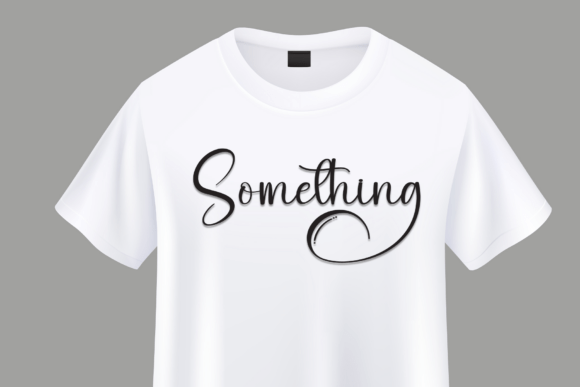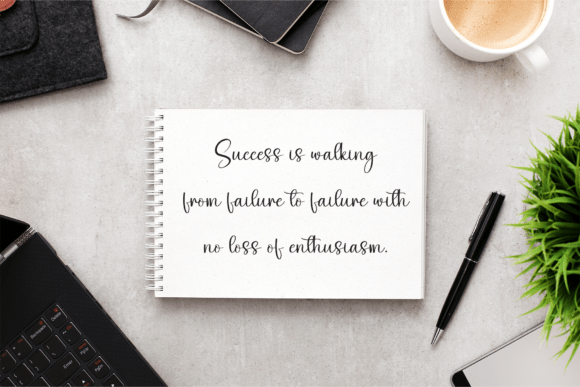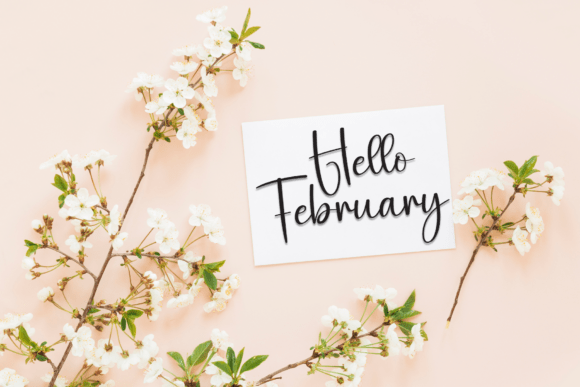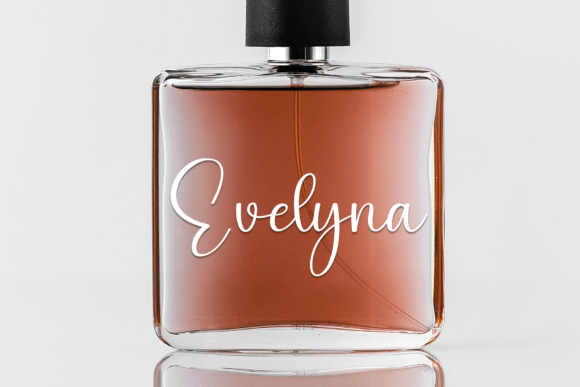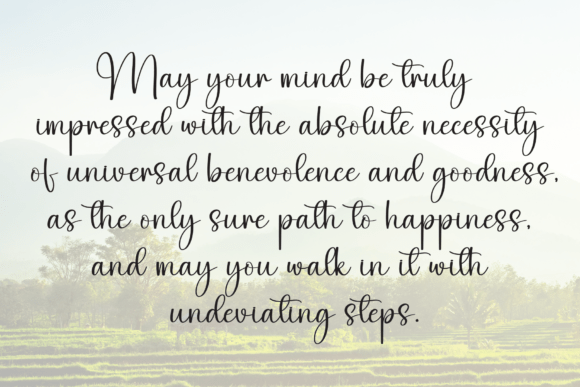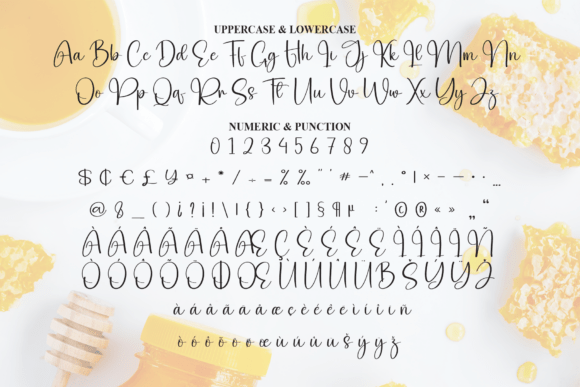
Unlock the Sweetest Touch for Your Creative Projects
Have you ever stumbled upon the perfect font while brainstorming for a new project, and suddenly, your entire concept comes to life? That’s exactly what happened to many designers when they discovered the enchanting Honey Beauty Font. This beautifully flowing script font is designed to add a personal and artistic touch to any creative endeavor.
Whether you’re working on DIY-themed designs, crafting handmade product branding, or creating invitations and scrapbooking layouts, the Honey Beauty Font is the perfect companion. Its elegant curves and handcrafted feel evoke a sense of warmth and authenticity, making it an invaluable asset for any designer seeking to elevate their work.
Honey Beauty Font Key Features
- Unique Characteristics: Features a soft, elegant, and feminine design, making it ideal for beauty, fashion, and lifestyle branding.
Honey Beauty Font Review
I’ve had the chance to work with the Honey Beauty Font, and I must say it’s a lovely addition to any design project. ✨ The font’s soft, elegant curves make it perfect for beauty and wellness brands, or any project that needs a touch of femininity. The Honey Beauty Font is also highly customizable, with a range of weights and styles to choose from.
One of the things I appreciate about this font is its legibility. ✨ It’s easy to read, even at small sizes, making it perfect for digital projects like websites and social media. The font also works well in both serif and sans-serif contexts, giving you flexibility in how you choose to use it.
- ⚠️ Limited OpenType features: While the font is highly customizable, it may not support advanced OpenType features like ligatures or swashes, which could be a limitation for designers who rely on these features.
Overall, I’m impressed with the Honey Beauty Font. It’s a beautiful, versatile font that’s perfect for a wide range of design projects. With a little caution when it comes to language support and OpenType features, I think this font could be a great addition to any designer’s toolkit.
Tips for Getting the Most Out of the Honey Beauty Font
Use the Honey Beauty Font for designs that require a touch of elegance and sophistication. This font is particularly well-suited for beauty and wellness branding, wedding invitations, and other feminine designs.
The Honey Beauty Font is commonly used for:
- Beauty and wellness branding
- Feminine product packaging and labeling
- Blog and website headers